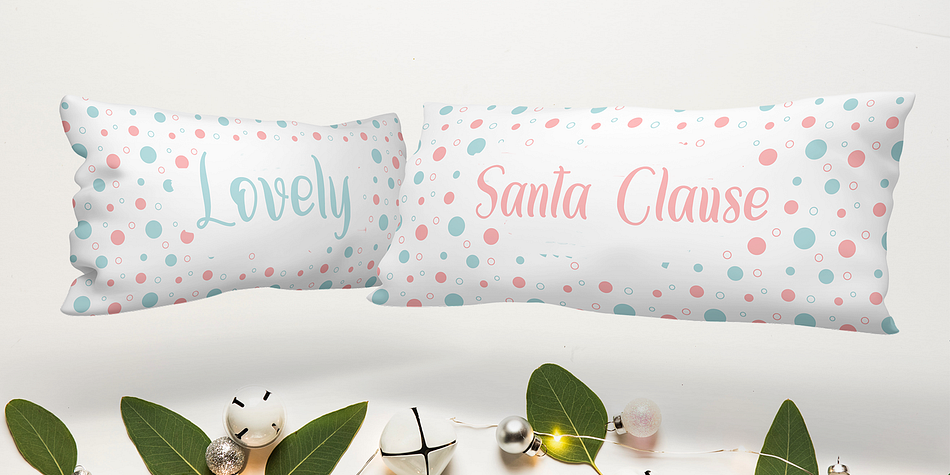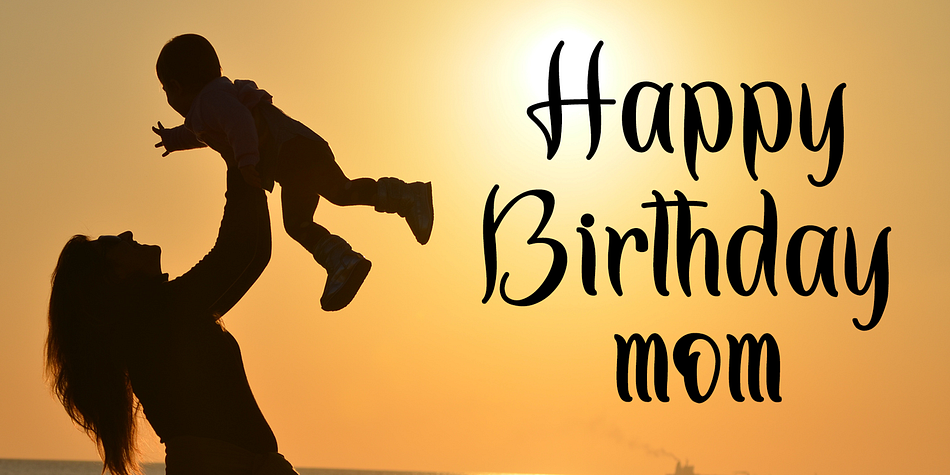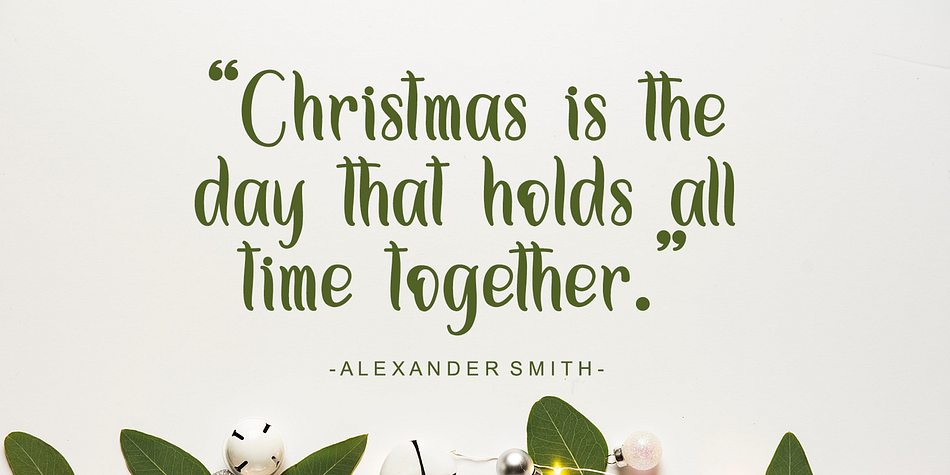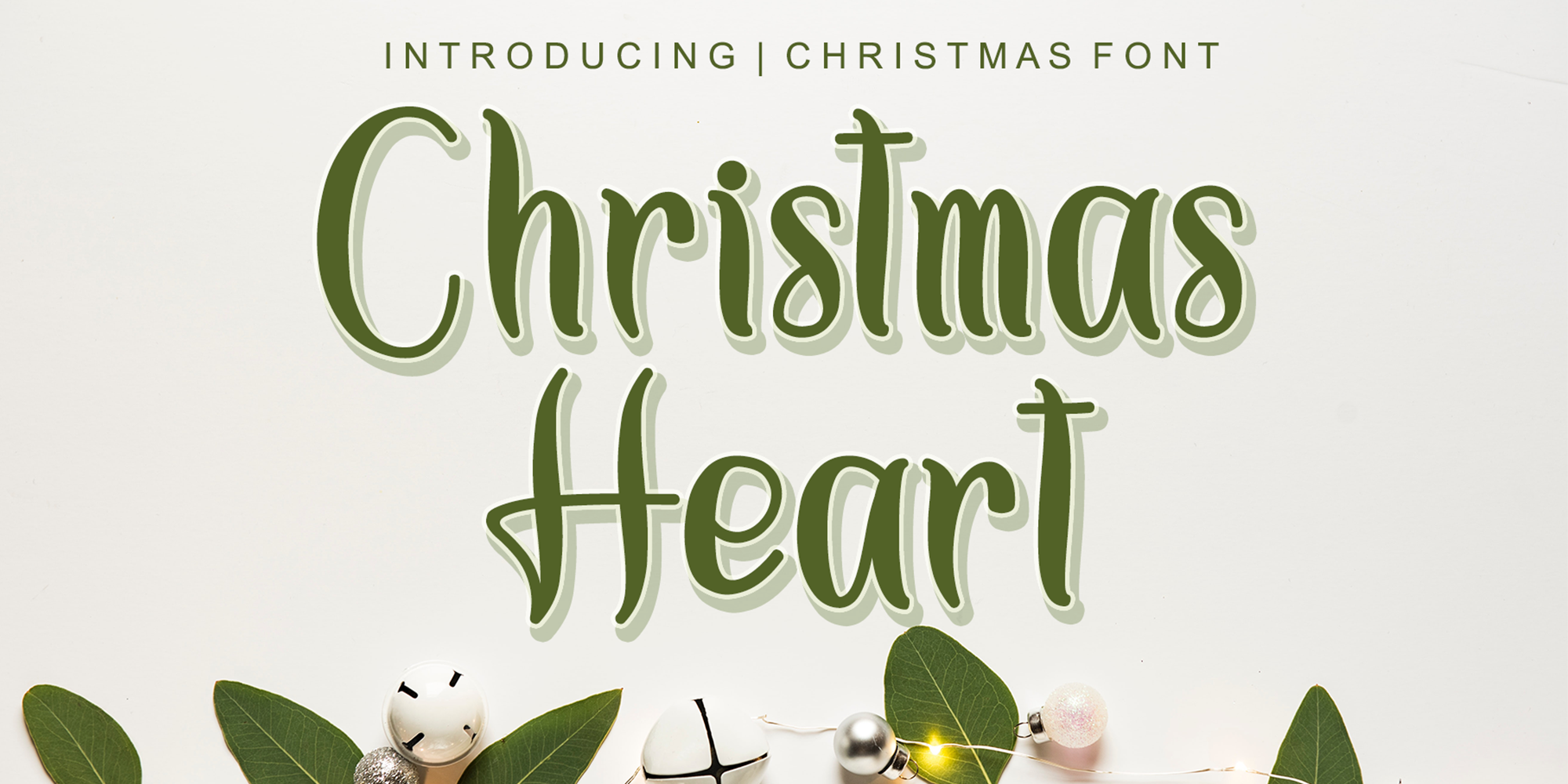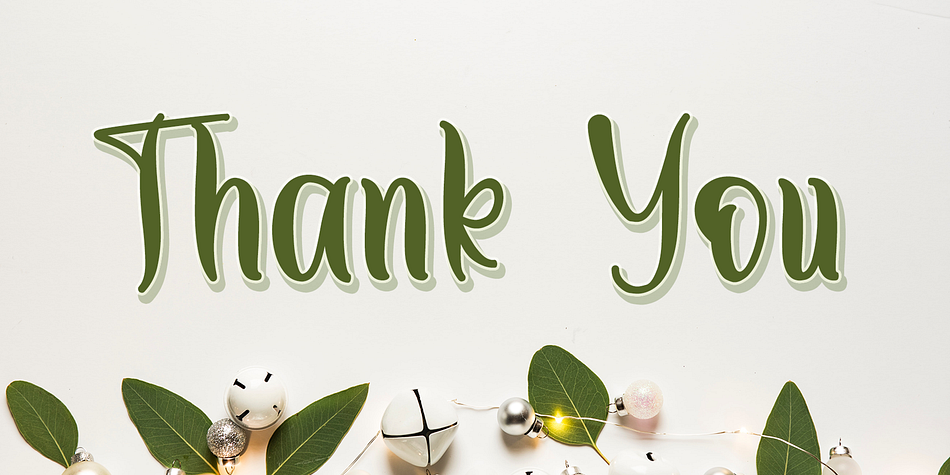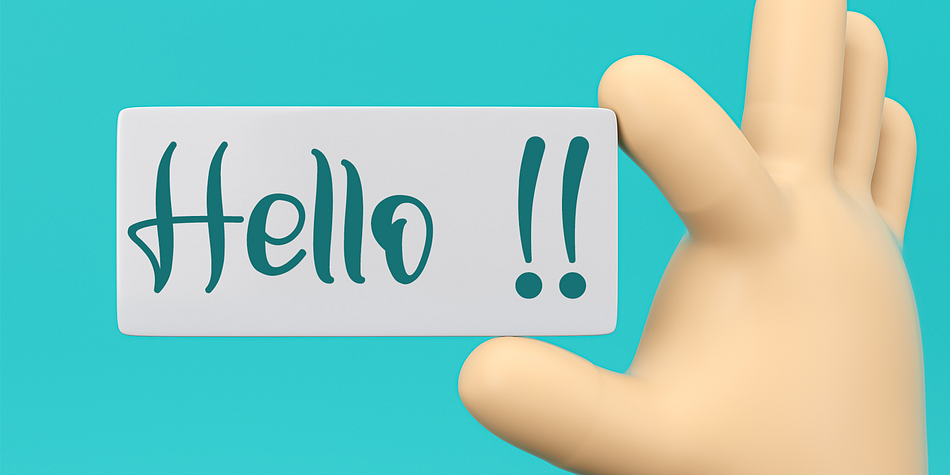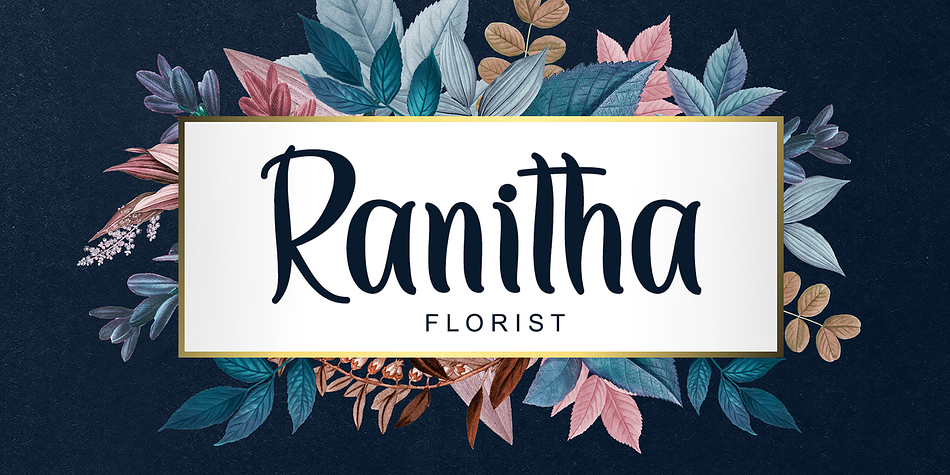
Christmas Heart
Designed by Ahmad Afandi, Christmas Heart is a brush script font family published by Letterafa Studio.
Christmas Heart feels incredibly elegant and flowing. It looks stunning on wedding invitations, thank you cards, quotes, greeting cards, logos, business cards and every other design which needs a handwritten touch.